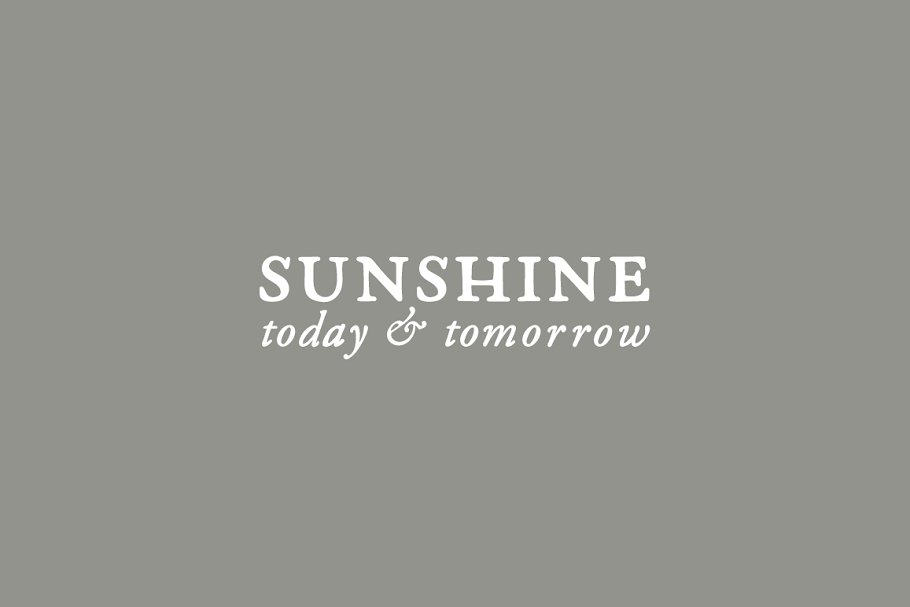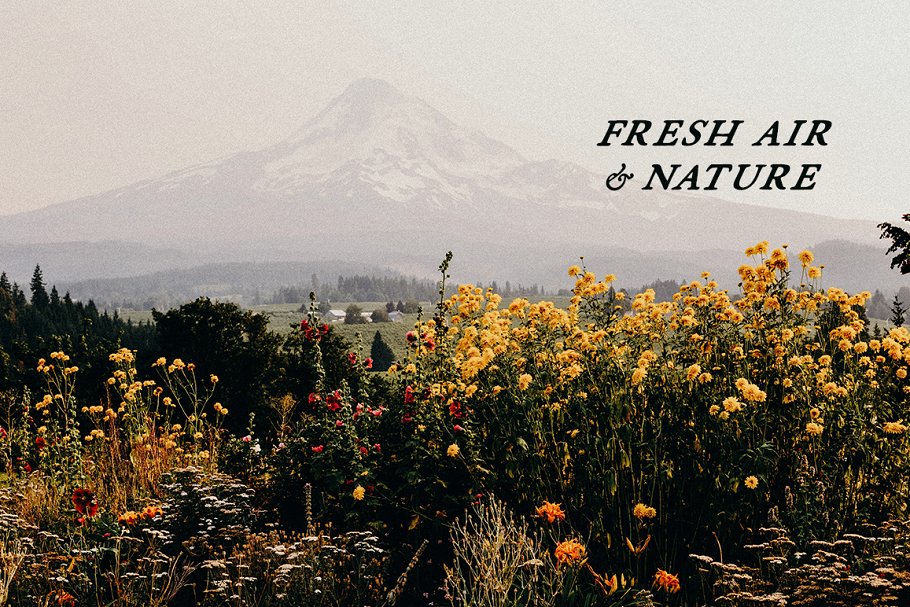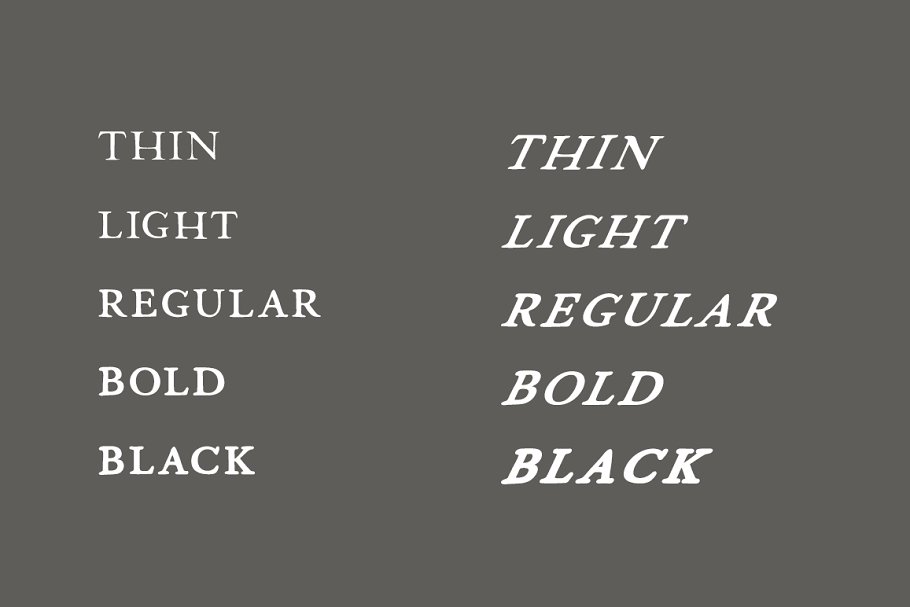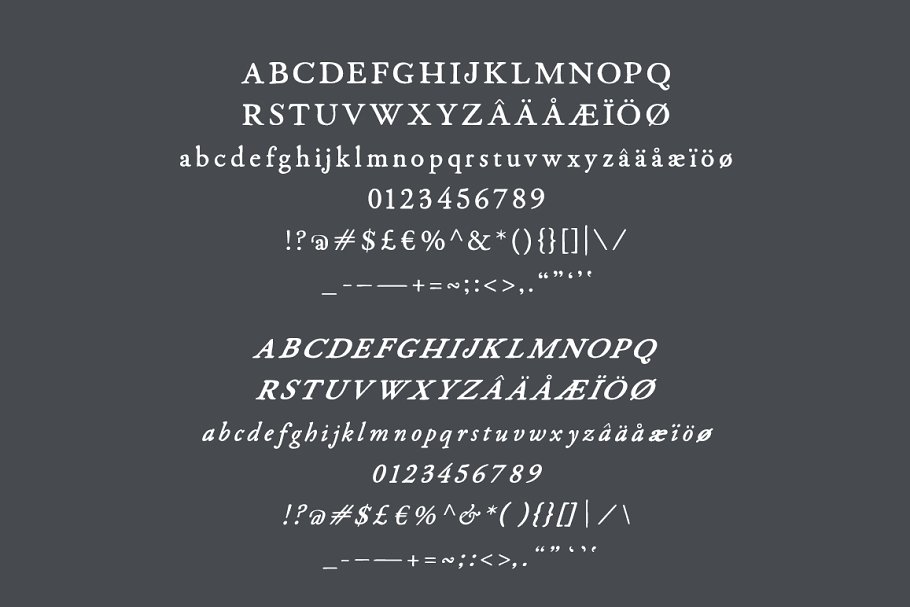
About the Fabello Family hand lettered Font
THE FONT STORY // The Fabello handmade font was created to embody my recent design work and lettering style, The font creates a timeless feel while tipping its cap to the past with its vintage-inspired lines, The crisp lines will fool you but zoom in and you get a nice organic wave, USE FOR THIS FONT // With its bold feel and touch of organic, this font is meant to be versatile
It is perfect for all projects that need anything from a naturally bold or a simple thin style, I recommend medium spacing to let the individual letters do their thing while also working well as a whole, Adjust and play around with it to get it just where you like it!ABOUT MY FONTS // All fonts are originally created by hand
This one was made with a micron pen, I believe strongly in the handmade design process, It brings a truly unique end result to the table, After the handmade process is complete, the font is scanned in, converted to vector, and made into a working typeface thanks to Fontself